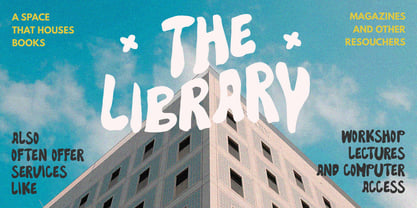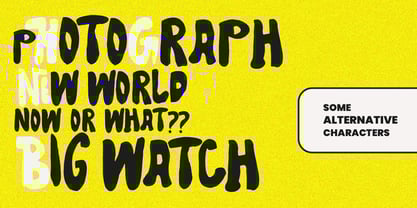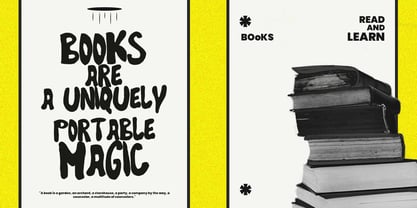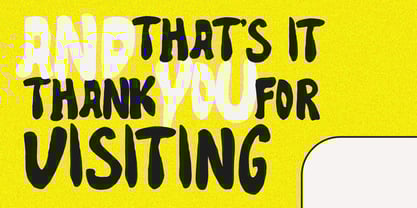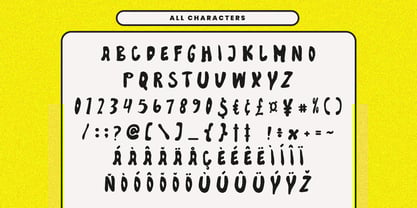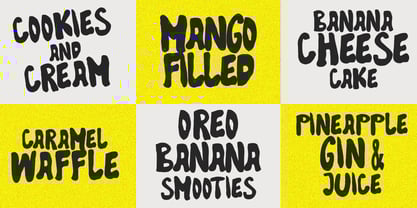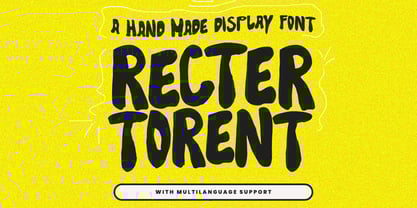
MC Recter Torent
by Maulana Creative
The MC Recter Torent Font Family was designed by Gilang Maulana and published by Maulana Creative. MC Recter Torent contains 1 styles. More about this family
Recter Torent is a handmade display handwritten font. With bold stroke, fun character to give you an extra creative work. Recter Torent font support multilingual more than 100+ language. This font is good for logo design, Social media, Movie Titles, Books Titles, a short text even a long text letter and good for your secondary text font with sans or serif. Make a stunning work with Recter Torent font.
Designers: Gilang Maulana
Foundry: Maulana Creative